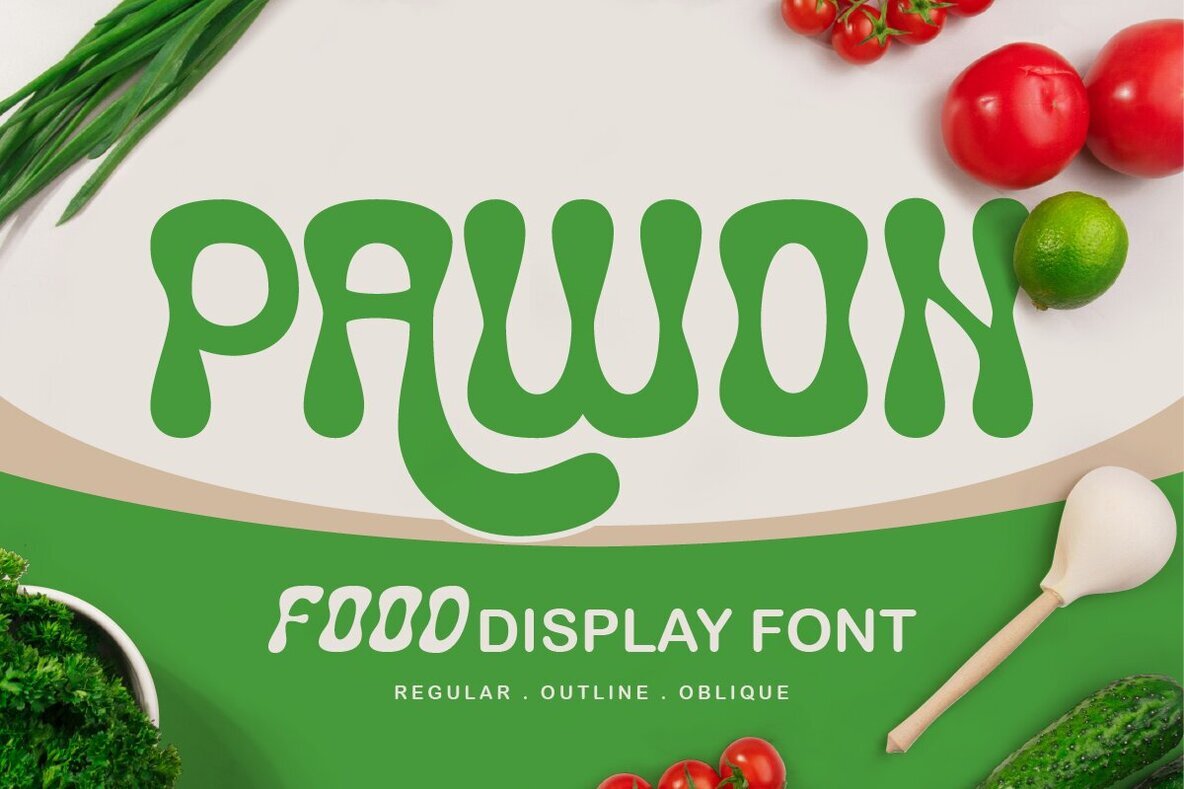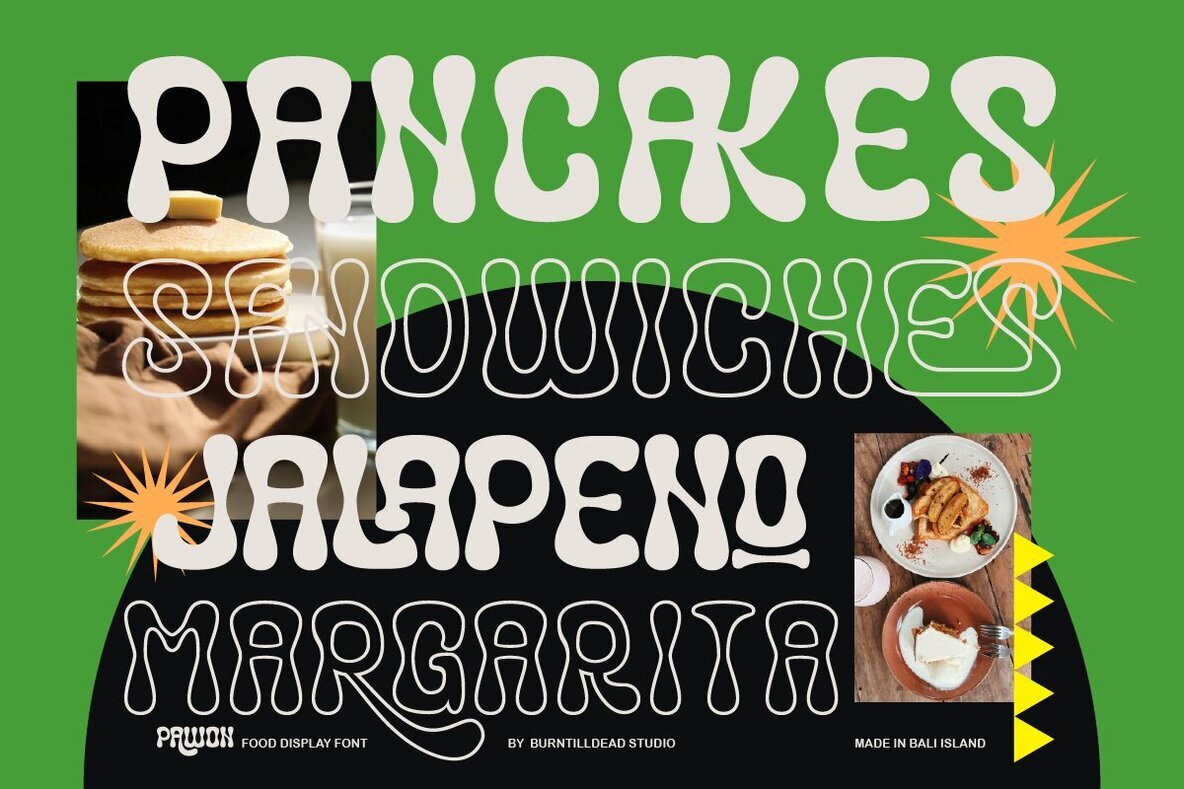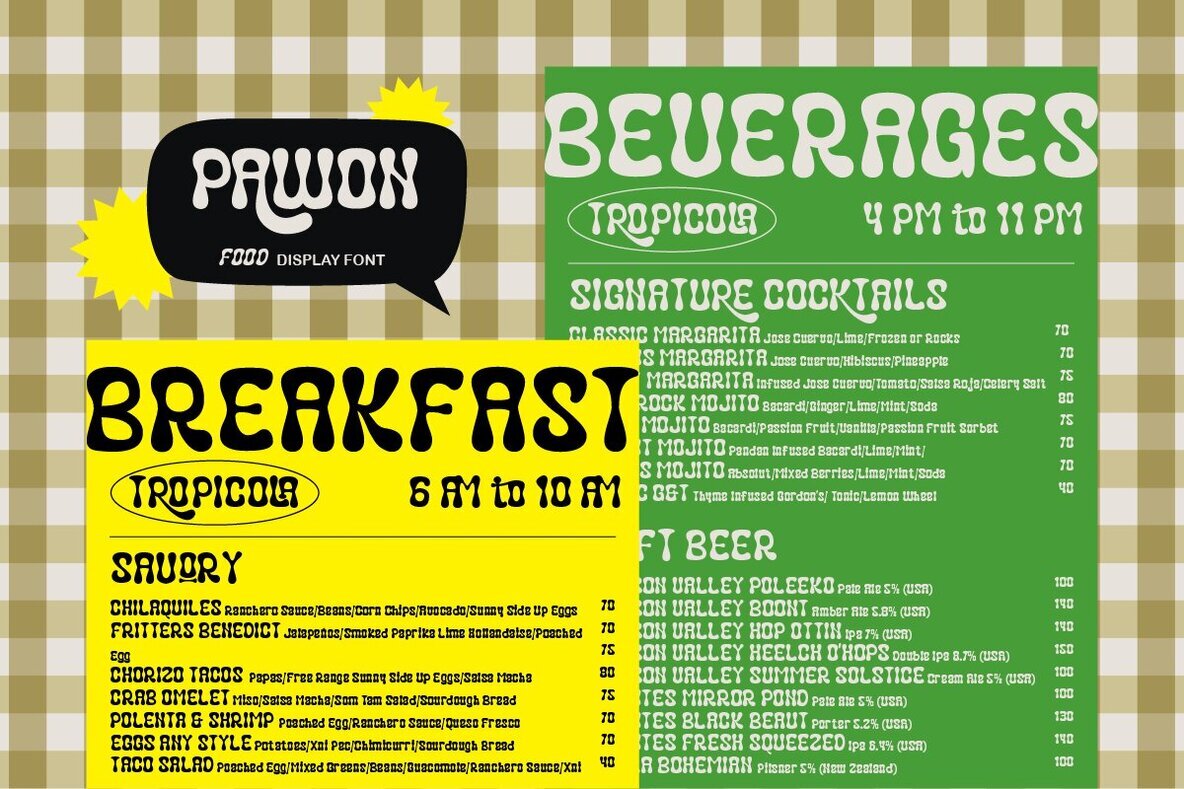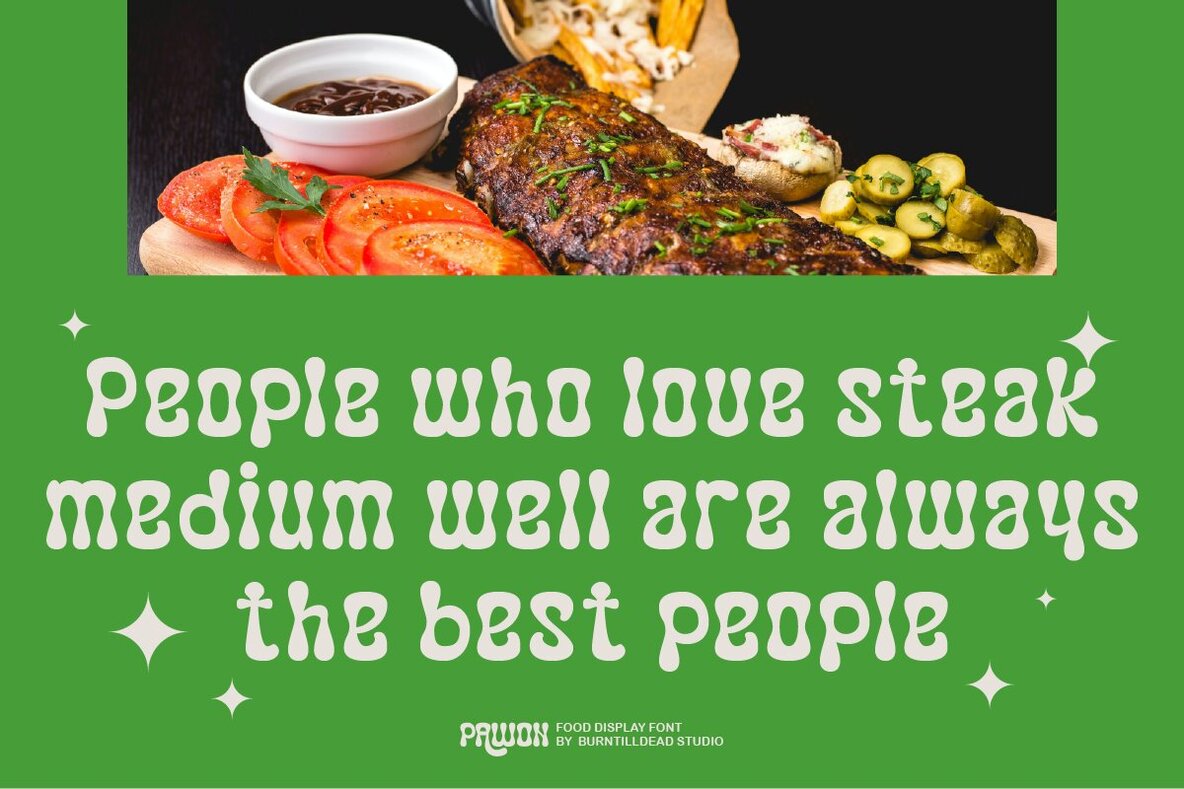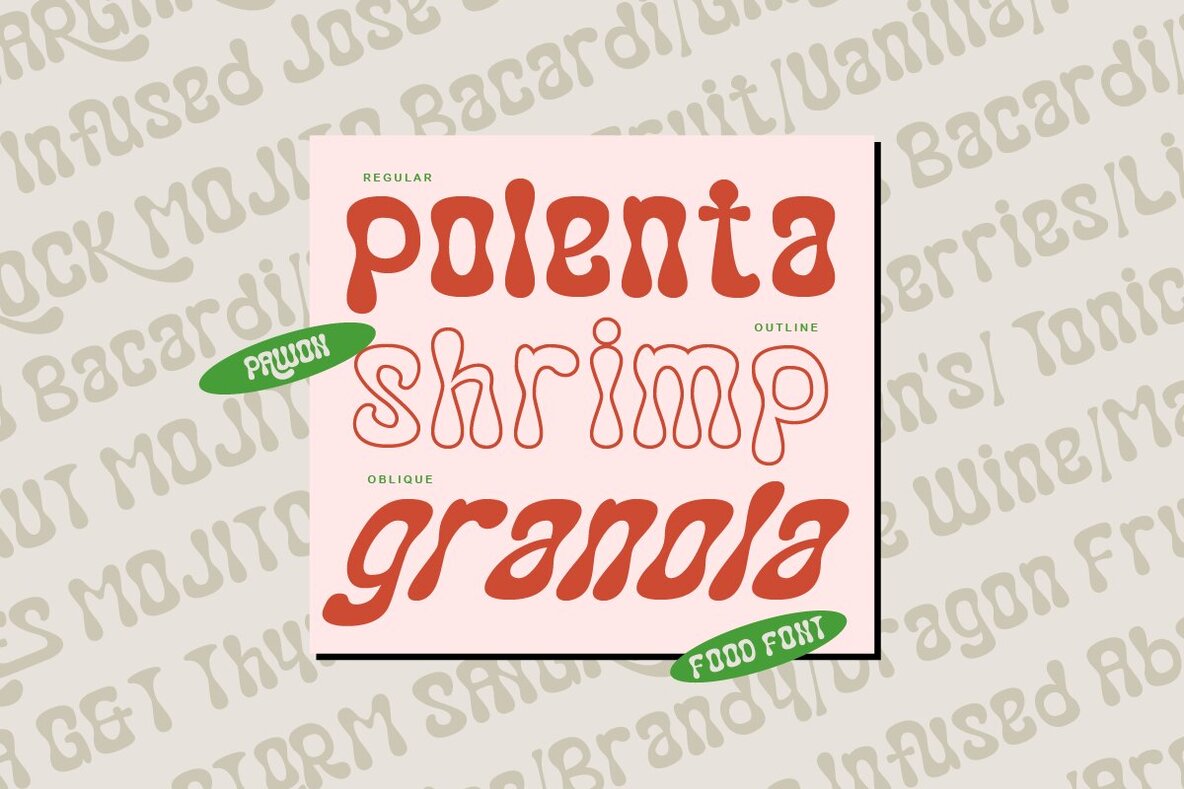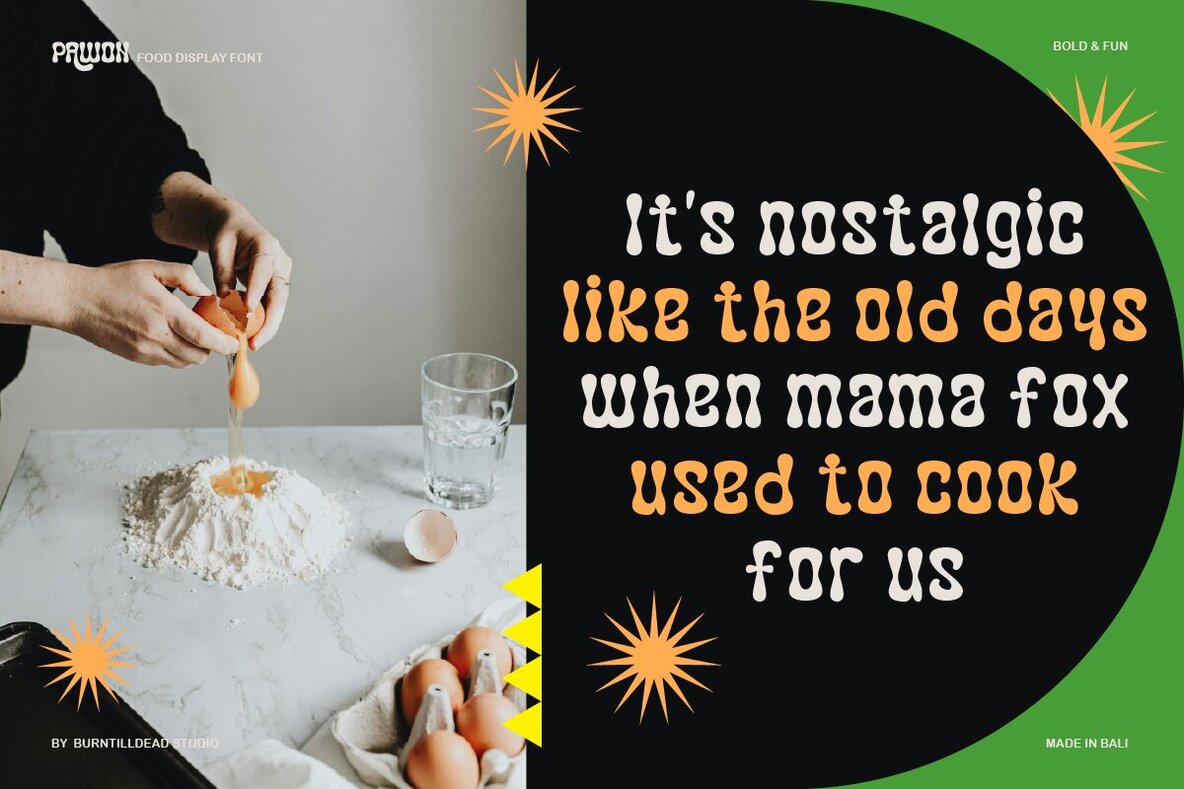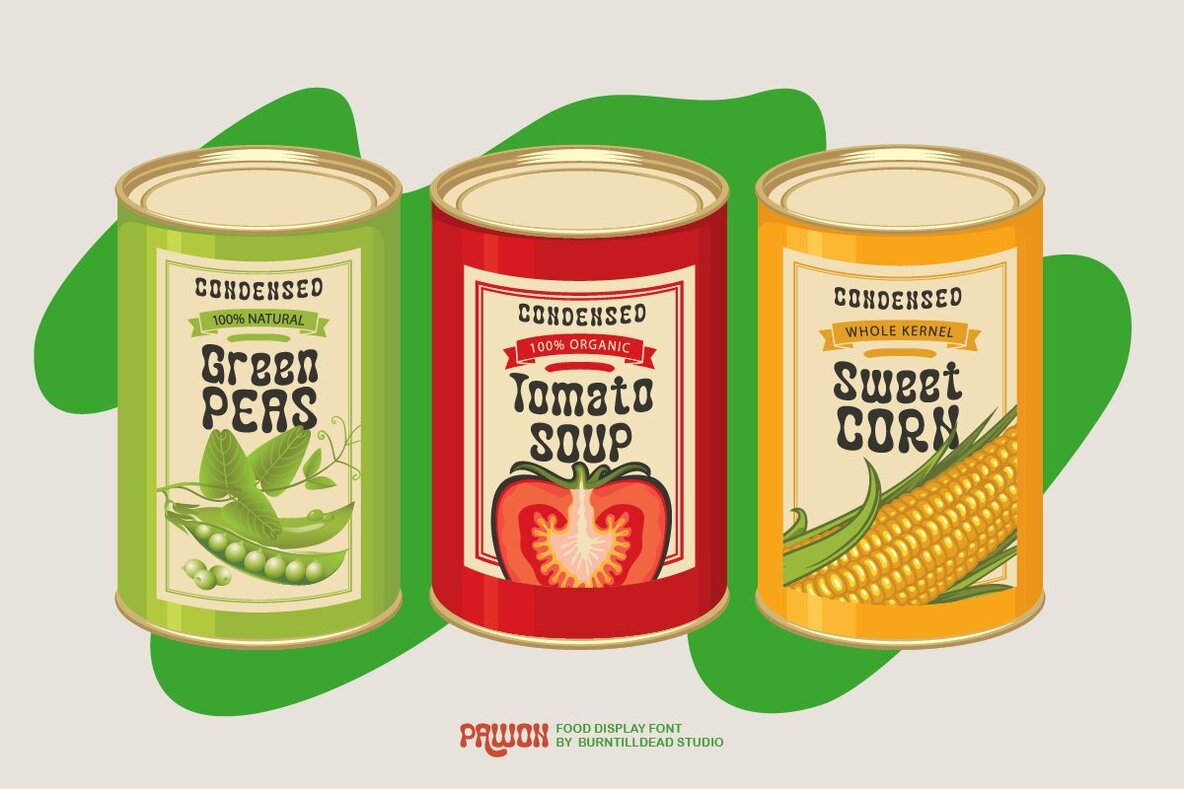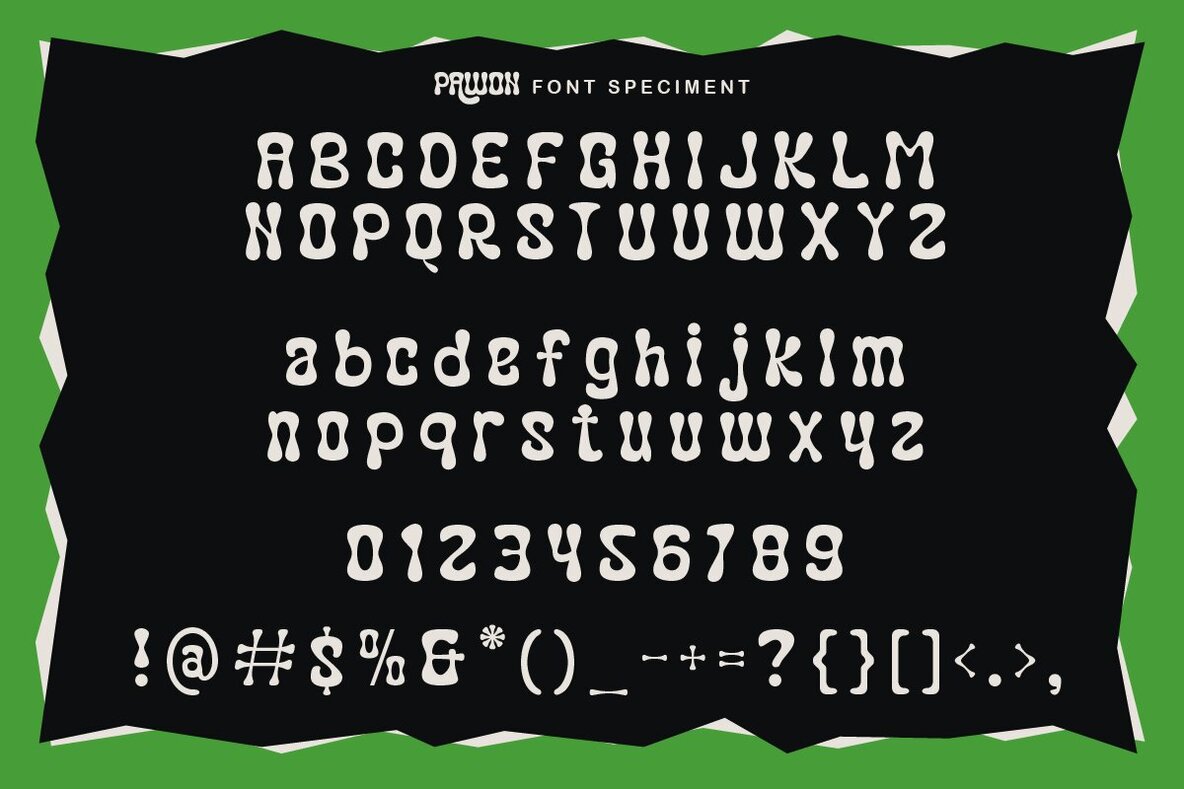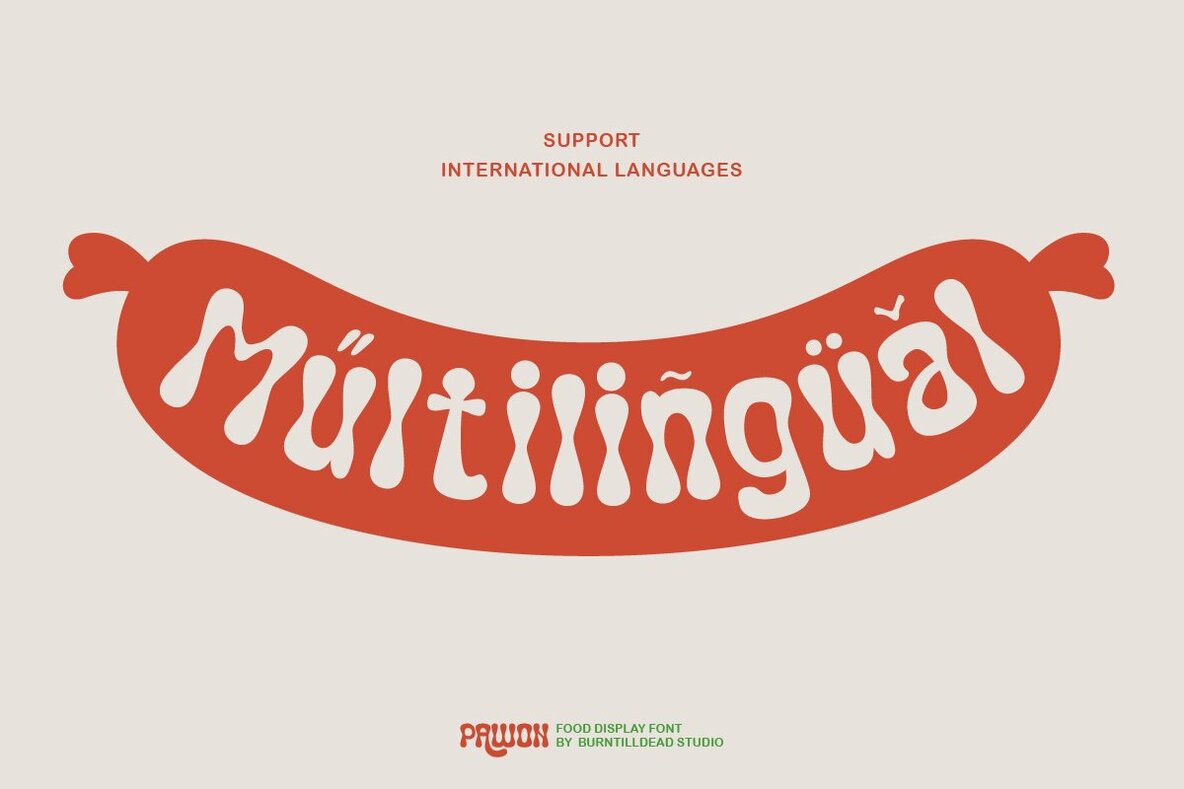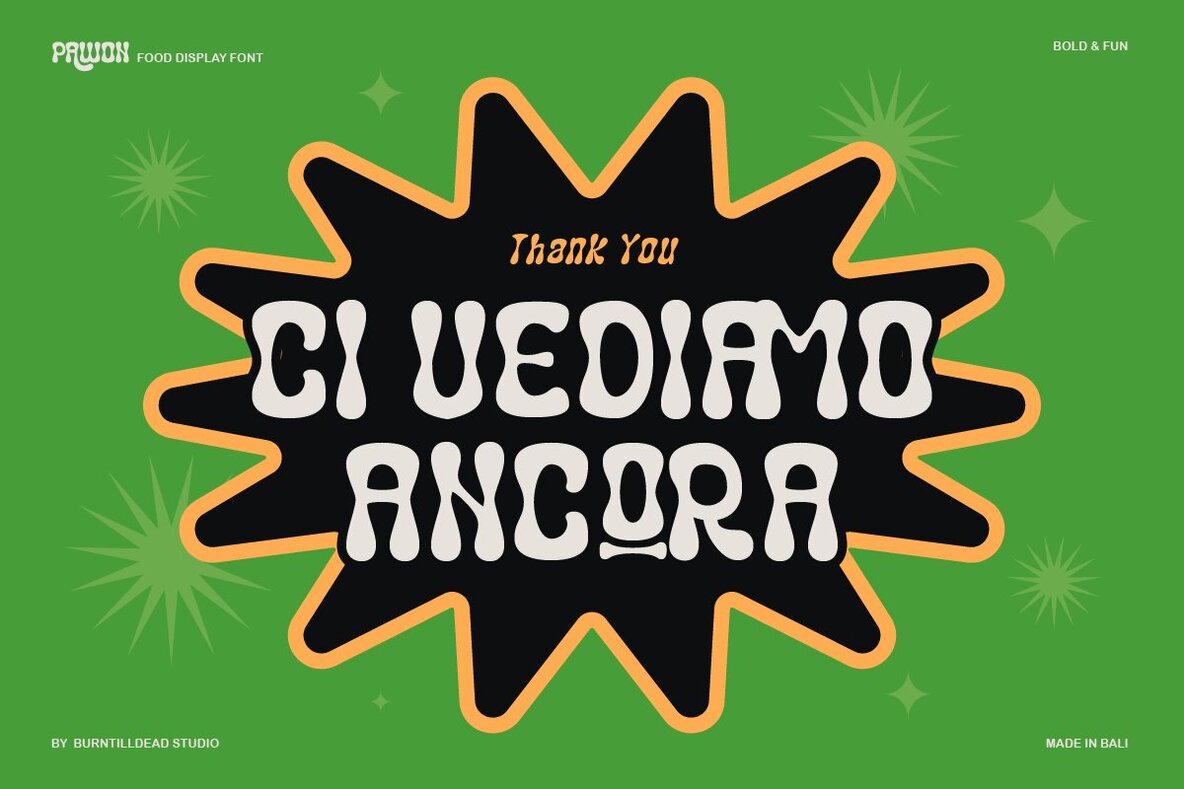
Pawon Font
Pawon Regular
Pawon Oblique
Pawon Outline
Pawon is a lively and bold font designed for food-centric branding and culinary design projects. Its smooth, wavy letterforms exude a playful and inviting aesthetic, making it ideal for restaurant menus, food packaging, and organic product branding. This font is perfect for adding a deliciously eye-catching touch to cafes, bakeries, and food-related businesses.
Available in three distinct styles—Regular, Outline, and Oblique—Pawon is versatile enough to enhance logos, menus, social media content, and food advertisements. It includes a comprehensive character set with uppercase and lowercase letters, numbers, punctuation, alternates, ligatures, and multilingual support, providing all the essentials needed for diverse design applications. Use Pawon to inject flavor and creativity into your culinary projects, ensuring your designs stand out with their fresh and appetizing vibe.